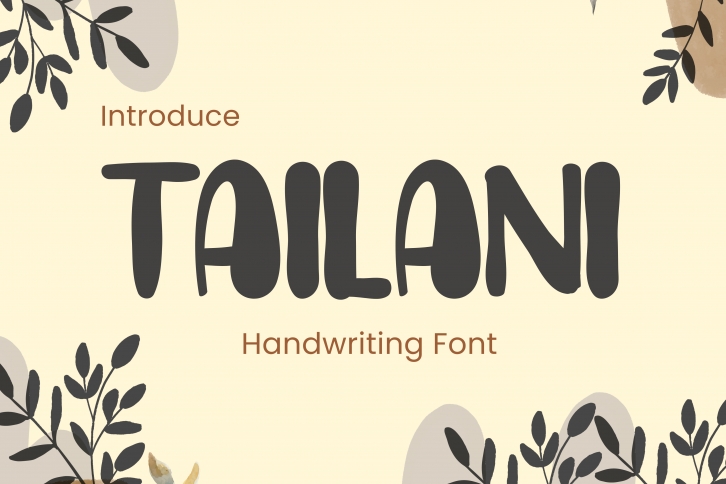
Tailani is a cute handwritten font. This font is oval in shape, charming and perfect with unexpected curves making it beautiful to look at and suitable for many design or craft projects such as logos, wedding invitations, t-shirts, letterheads, labels, news, posters, badges. and much more.